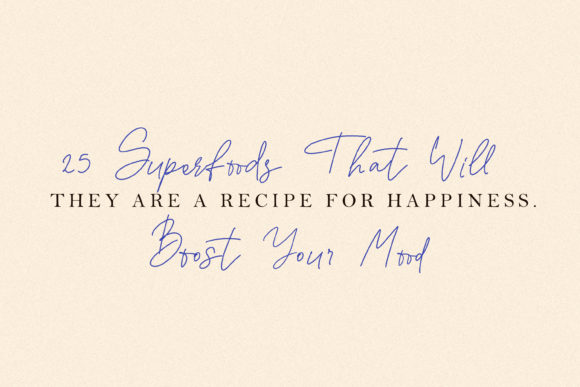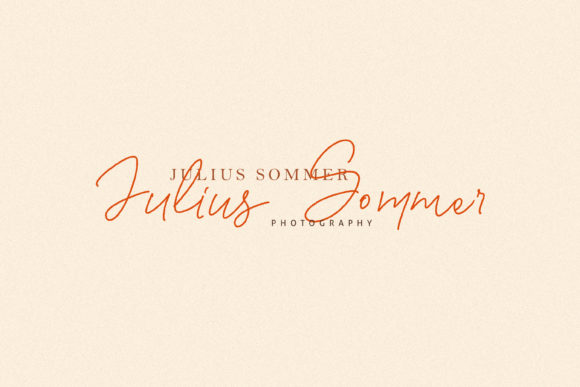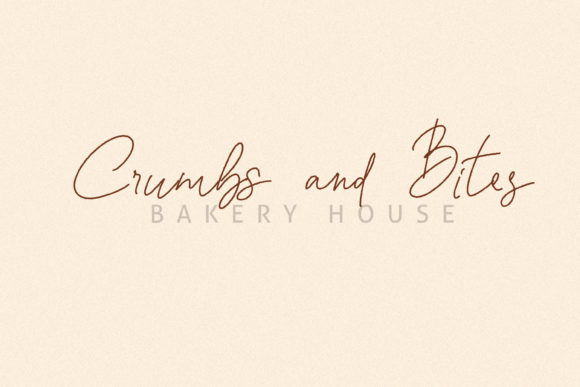
Discover the Elegance of Freezetide Font: Elevate Your Designs with Unique Ligatures and Alternatives
In the realm of typography, a font can make or break the aesthetic appeal of a design project. For designers and crafters seeking to add a touch of elegance and uniqueness to their work, the Freezetide Font is a gem worth exploring. This beautiful script font is not just any ordinary typeface; it’s a standout in the world of typography, thanks to its stunning ligatures and alternatives that breathe life into any design.
What Makes Freezetide Font Special?
Freezetide Font is a meticulously crafted script font that embodies the essence of elegance and sophistication. Its design is centered around providing a unique typing experience, making it perfect for projects that demand a bit of flair. The inclusion of beautiful ligatures and alternatives is what truly sets Freezetide apart, allowing designers to create stunning, cohesive pieces that capture the eye.
The Beauty of Ligatures and Alternatives
Ligatures and alternatives in typography refer to special character combinations and alternate glyphs that replace standard character pairs or single characters, offering a more harmonious and fluid appearance. Freezetide Font leverages these typographic elements to enhance the visual appeal of text. Whether it’s the way letters connect or the availability of stylistic alternatives, Freezetide ensures that your text doesn’t just convey a message but does so with style.
Uses of Freezetide Font
The versatility of Freezetide Font makes it suitable for a wide range of design projects. Here are a few areas where this font truly shines:
- Branding and Logotypes: The unique characteristics of Freezetide make it an excellent choice for creating brand identities that stand out.
- Invitations and Event Materials: Add a touch of sophistication to your event invitations, menus, and programs.
- Packaging: Elevate your product packaging with elegant and eye-catching typography.
- Digital Media: Use Freezetide in your digital content, such as blog headers, social media graphics, and website titles, to create a memorable user experience.
To make the most out of Freezetide Font, consider the following tips:
- Experiment with Ligatures: Don’t be afraid to play around with the ligatures and alternatives available in Freezetide. They can significantly alter the look and feel of your text.
- Pair it Wisely: When using Freezetide in combination with other fonts, ensure there’s a good contrast. Freezetide’s elegance can be a great anchor for more straightforward typefaces.
- Adjust and Customize: Take advantage of the font’s flexibility. Adjust sizes, colors, and styles to fit your design’s needs while maintaining the font’s distinctive charm.
Freezetide Font, with its beautiful ligatures and alternatives, offers designers and crafters a powerful tool to elevate their projects. Its elegance, versatility, and uniqueness make it a valuable addition to any designer’s toolkit. Whether you’re working on a branding project, crafting beautiful invitations, or designing captivating digital content, Freezetide is sure to leave a lasting impression. Explore the possibilities with Freezetide Font today and transform your designs with its distinctive charm.